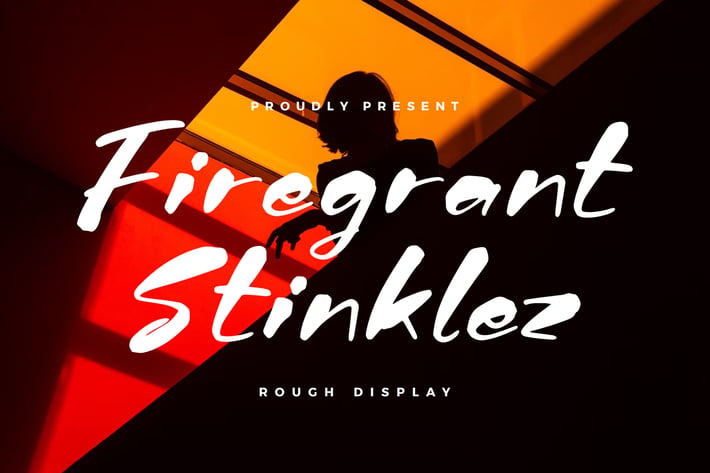
Firegrant Stinklez Rough Display Font
Firegrant Stinklez Rough Display Font is a bold and energetic handcrafted typeface that bursts with raw character. Designed with rough brush strokes and expressive texture, it brings an adventurous and dynamic edge to any creative project — perfect for making bold statements with personality and flair.
Rough handcrafted brush style for a bold, authentic look
Natural dry texture with irregular strokes
Great readability in both large and small sizes
Posters and advertising campaigns
Logo design and branding projects
Apparel and merchandise
Social media visuals
* Event promotions and packaging
Wild, bold, and full of energy — Firegrant Stinklez brings raw creativity to life in every stroke.